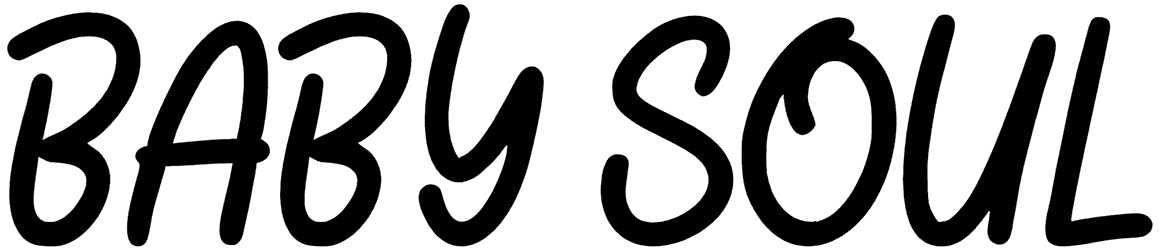
Baby Soul Font
When creating something for children, whether it be a poster, a card, a t-shirt, or something else, using the Baby Soul as a cartoon font will produce results that you will be satisfied with.